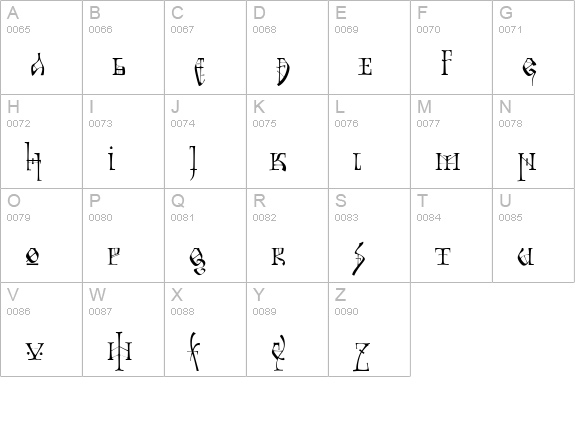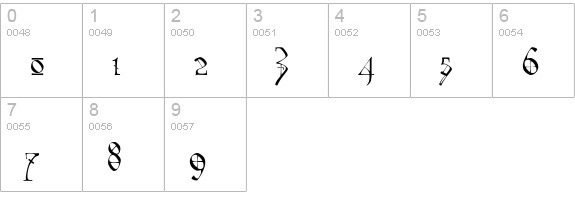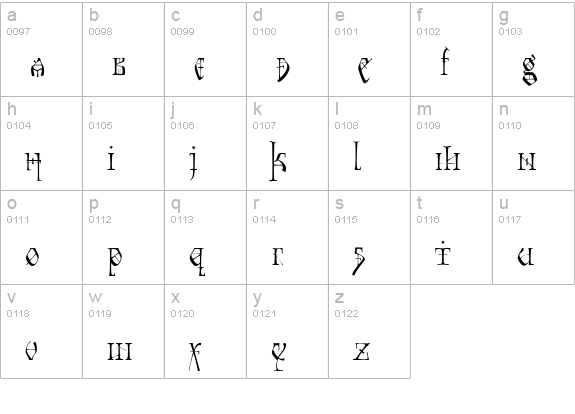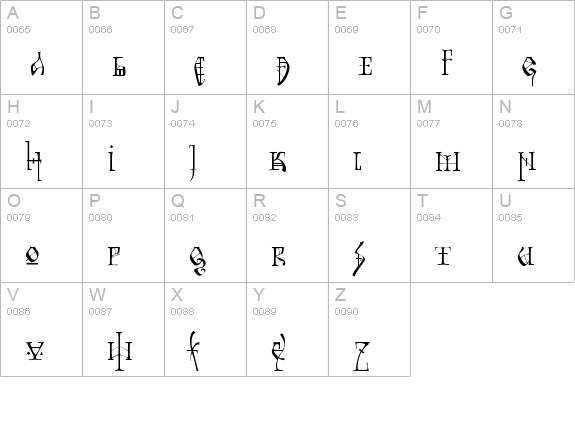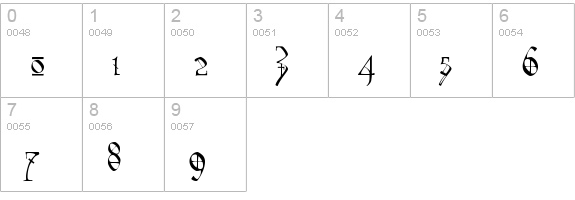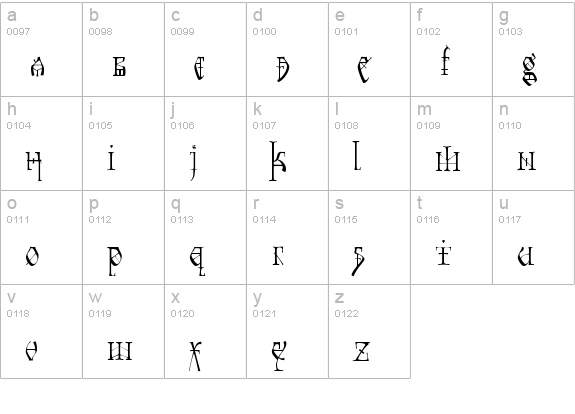
Introducing TyrantRoman, a captivating and commanding font that exudes an air of authority and strength. With its bold and powerful letterforms, this typeface is sure to make a bold statement in any project or design. TyrantRoman is a versatile font that can adapt to various styles and themes, from classic and elegant to modern and edgy. Its precise and sharp strokes make each character stand out, demanding attention and leaving a lasting impression on the viewer. But what sets TyrantRoman apart is not only its remarkable design but also its accessibility. This extraordinary font is available for free download at FontsMarket.com, making it easily accessible to designers, artists, and creatives of all kinds. Whether you're working on a logo, a branding project, a website, or any other creative endeavor, TyrantRoman will surely elevate your work to new heights. Its timeless design and commanding presence will leave a lasting impact, making it a perfect choice for any project that requires a touch of boldness and sophistication. Download TyrantRoman for free now at FontsMarket.com and unlock the potential of this remarkable font. Let its powerful and captivating design take your designs to the next level and make a lasting impression on your audience.